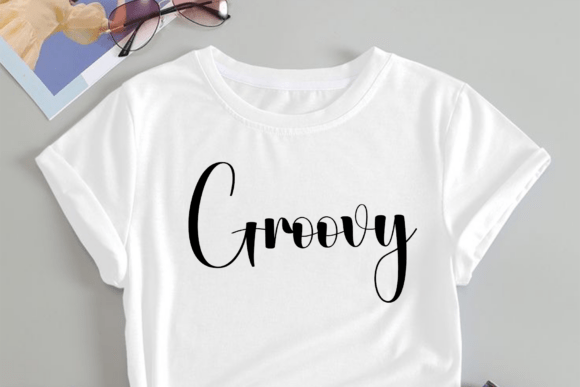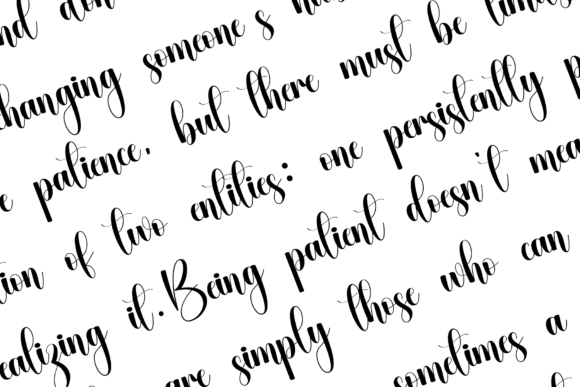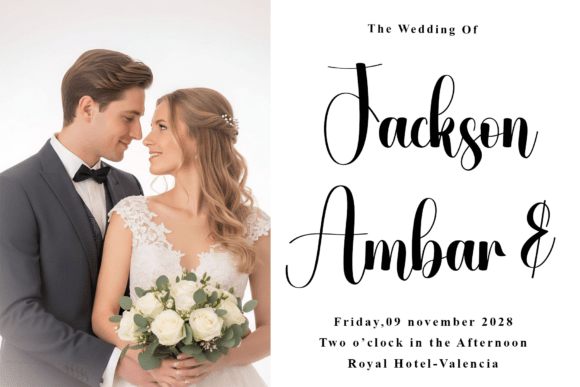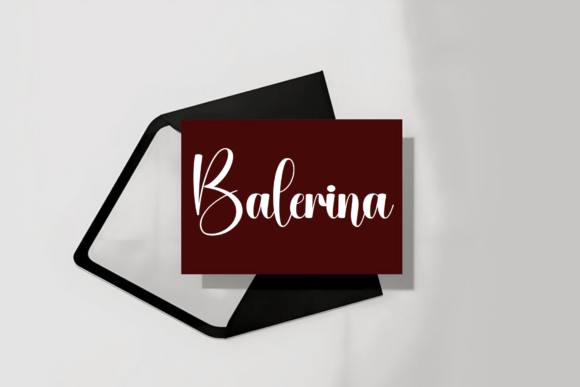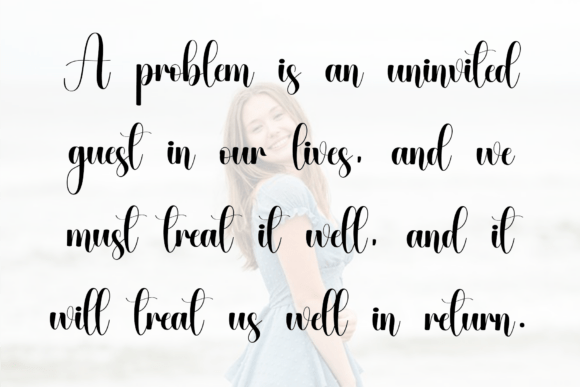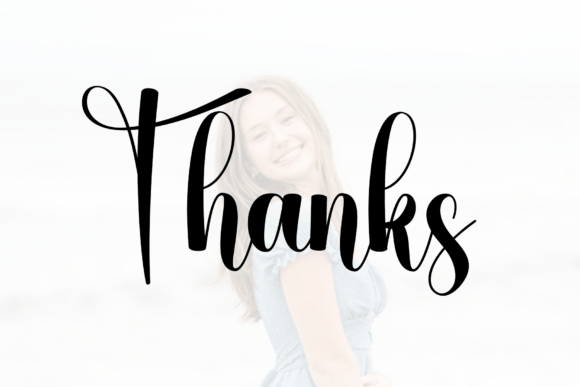
Introducing Alina Font: Elevate Your Design with Modern Calligraphy
In the world of typography, few fonts manage to capture the essence of style and sophistication as effectively as Alina Font. This bold and expressive modern calligraphy font is designed to bring energy, charm, and a touch of elegance to your creative projects. Whether you’re a designer, entrepreneur, or crafter, Alina Font offers the perfect blend of strength and sophistication to make your work stand out.
Characteristics of Alina Font
Alina Font is distinguished by its tall ascenders, dramatic swashes, and organic curves, which together create a dynamic and fluid appearance. Every letter in this font feels hand-drawn with intention, exuding a sense of confidence and style. The dramatic swashes add a touch of flair, making Alina Font particularly suitable for designs that require a bit of drama and elegance.
One of the key advantages of Alina Font is its versatility. This font is perfect for a wide range of design applications, including:
• Logo Design: Create memorable and impactful logos that stand out from the competition.
• Instagram Posts: Elevate your social media presence with stylish and engaging posts.
• Business Cards: Make a lasting impression with professional and elegant business cards.
• Product Packaging: Add a touch of sophistication to your product packaging and make it more appealing to customers.
• Wedding Stationery: Create beautiful and memorable wedding invitations, menus, and other stationery.
• Fashion Branding: Perfect for fashion brands looking to make a stylish and confident statement.
Who Can Benefit from Alina Font?
Alina Font is ideal for creators and entrepreneurs who want to make a confident, stylish impression. This includes:
• Graphic Designers: Looking for a modern calligraphy font that can add elegance and style to their designs.
• Fashion Designers and Brands: Seeking to create a strong and stylish visual identity.
• Stationery and Wedding Designers: Aiming to create beautiful and unique stationery and wedding materials.
• Social Media Influencers and Bloggers: Wanting to elevate their social media presence with stylish posts and stories.
• Small Business Owners: Looking for a professional and elegant font to represent their brand.
Why Choose Alina Font?
Alina Font offers a unique combination of style, elegance, and versatility, making it an excellent choice for anyone looking to elevate their design. Here are a few reasons why Alina Font stands out:
• Unique and Expressive: With its bold and expressive design, Alina Font can help your work stand out in a crowded market.
• Elegant and Sophisticated: Perfect for designs that require a touch of elegance and sophistication.
• Highly Versatile: Suitable for a wide range of design applications, from logo design to wedding stationery.
• Easy to Use: Alina Font is easy to integrate into your design projects, making it a convenient choice for designers and crafters.
Alina Font is a powerful tool for designers and crafters looking to add a touch of style and sophistication to their work. With its bold and expressive modern calligraphy design, tall ascenders, dramatic swashes, and organic curves, Alina Font brings character and elegance to any design project. Whether you’re creating logos, social media posts, business cards, or wedding stationery, Alina Font is the perfect choice for anyone seeking to make a confident and stylish impression.
Discover the potential of Alina Font and elevate your design to new heights. With its unique blend of strength and sophistication, Alina Font is sure to become an essential part of your design toolkit.